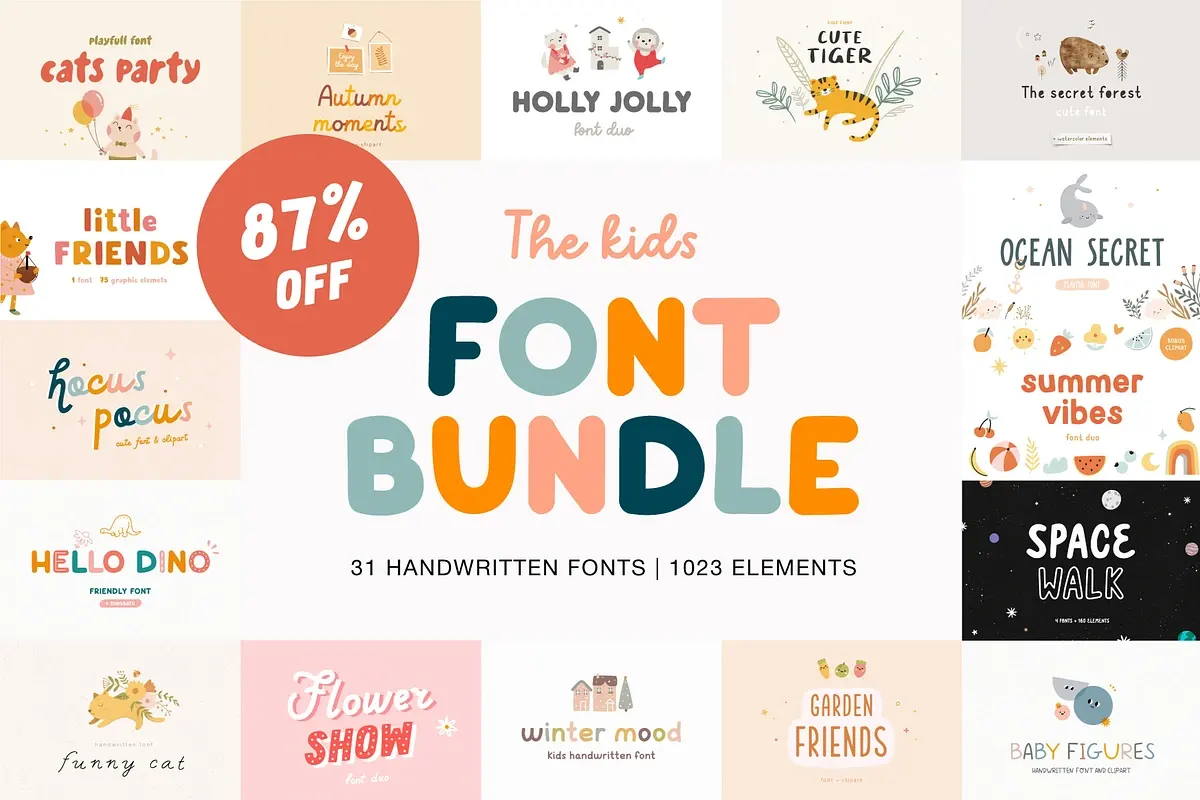
Kids Font BUNDLE Free Download is a fun and colorful collection of fonts specifically designed for children’s projects, making it perfect for creating playful and engaging designs. This bundle includes a variety of fonts, ranging from cute handwritten styles to bold and quirky display fonts, ideal for educational materials, invitations, posters, social media posts, and more.
With the Kids Font BUNDLE, you’ll have everything you need to create eye-catching designs that appeal to a younger audience. Whether you're designing for a children's book, a school event, or a toy brand, this bundle adds creativity and fun to any project.
Make your designs vibrant and fun with this delightful Kids Font BUNDLE!